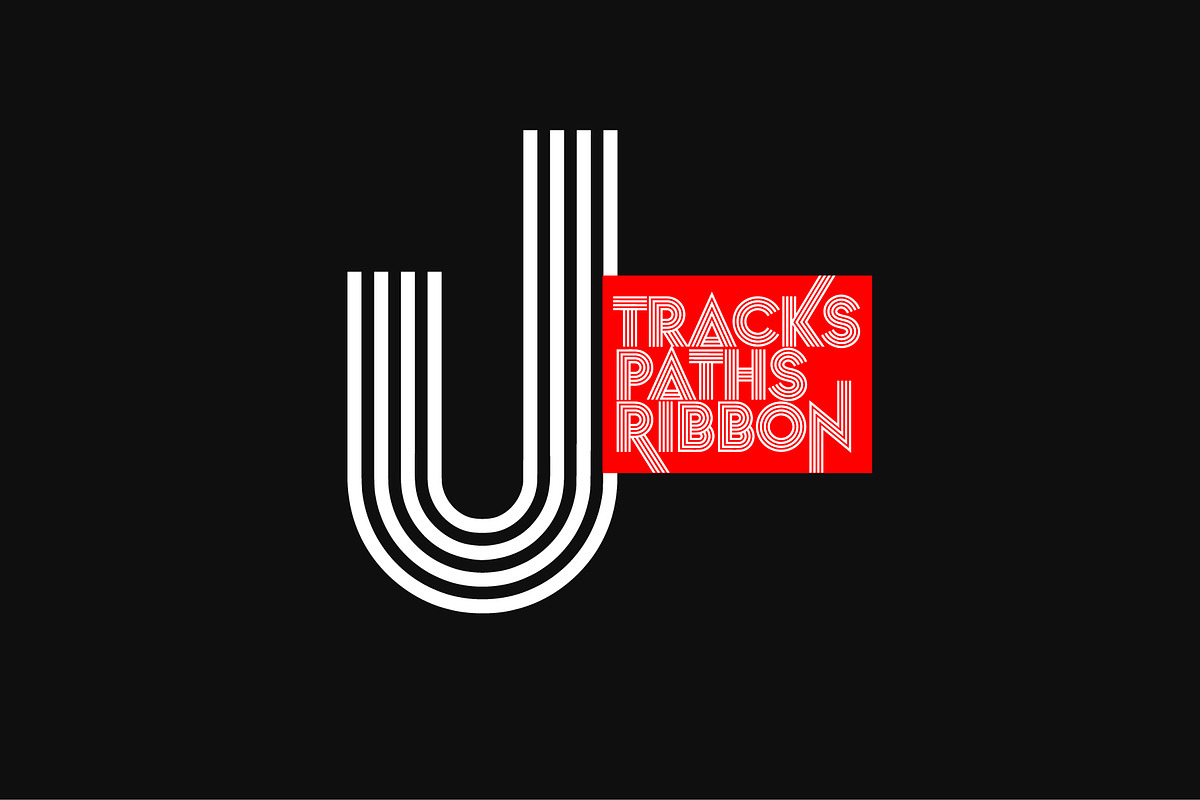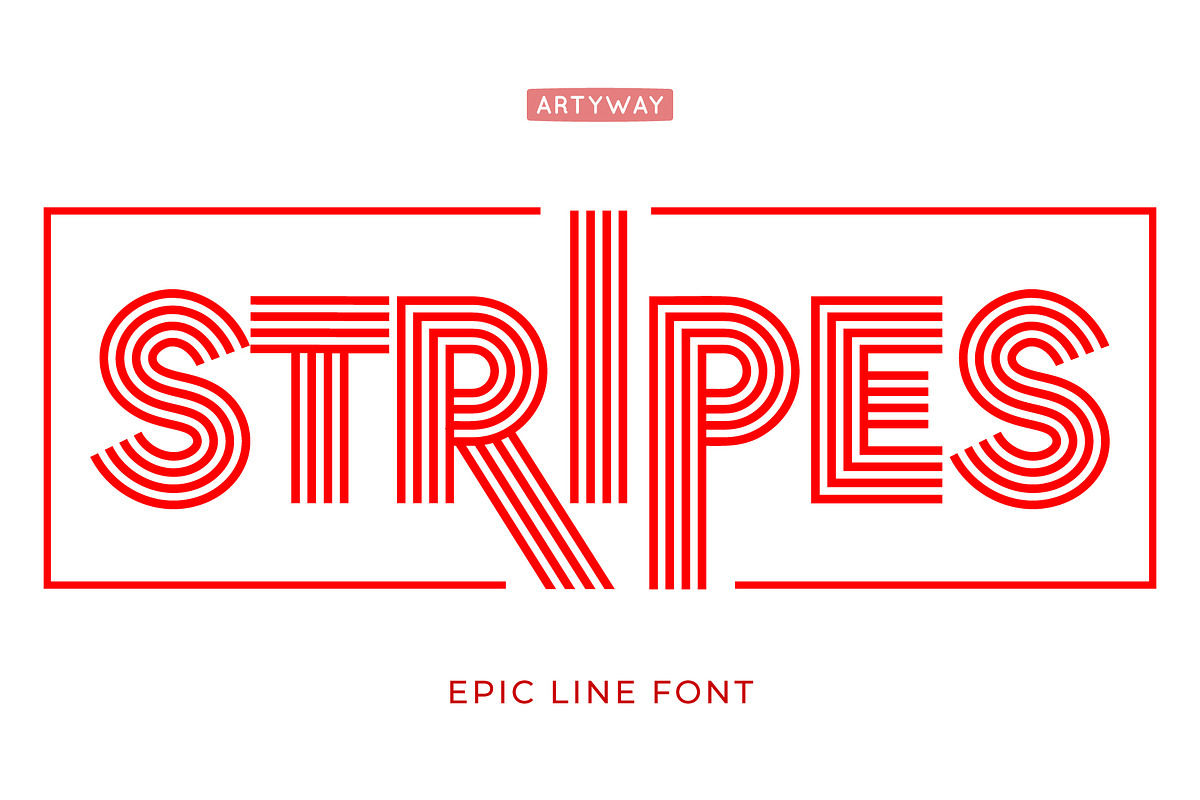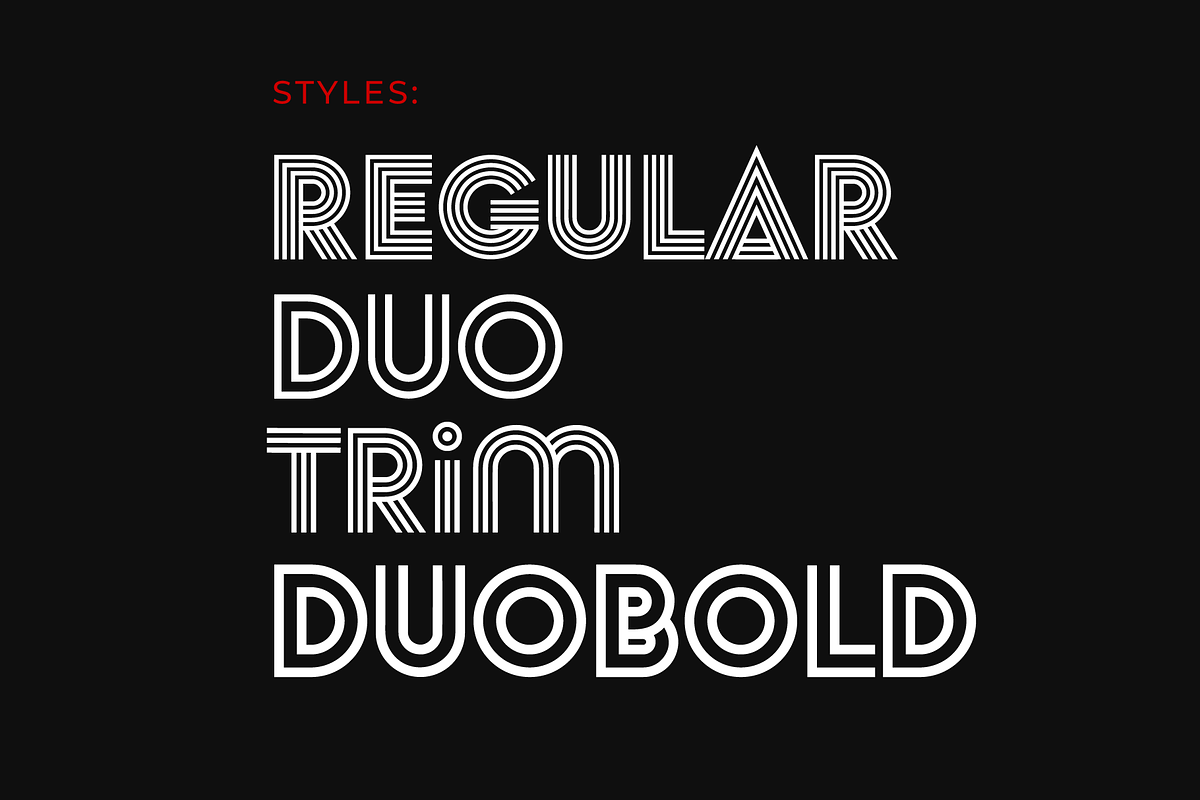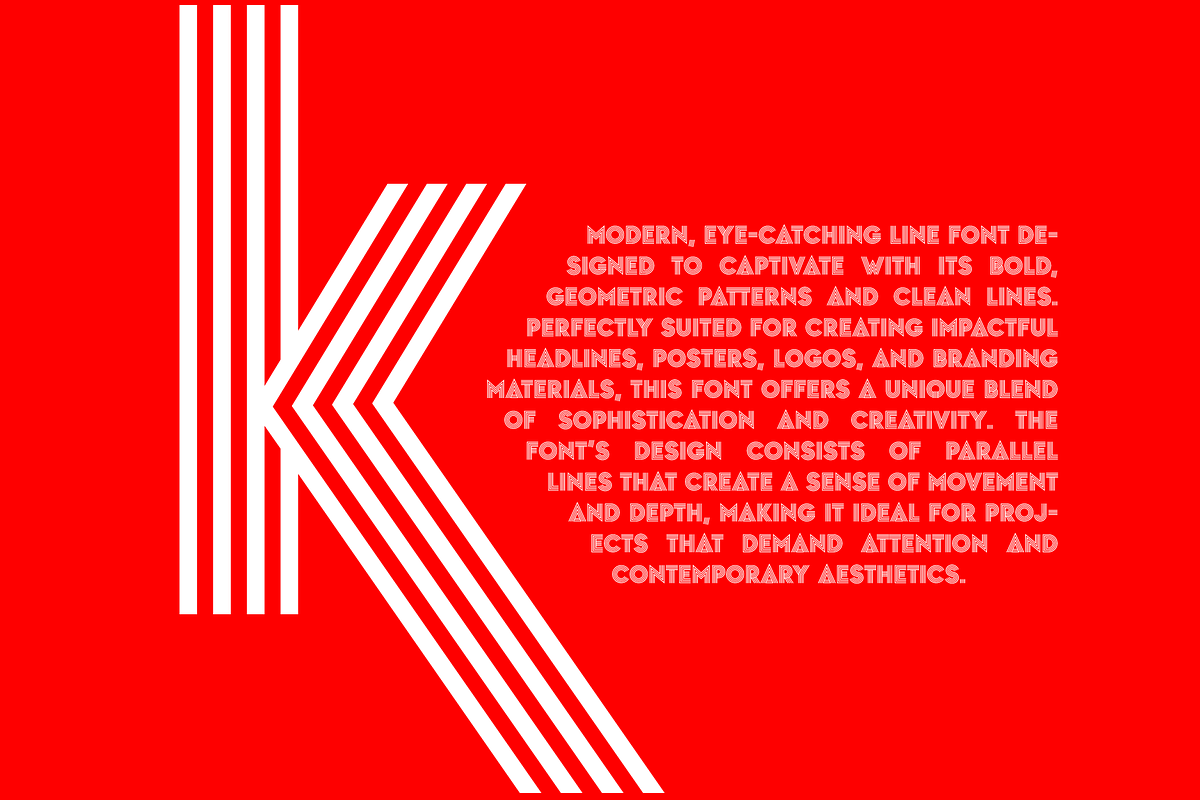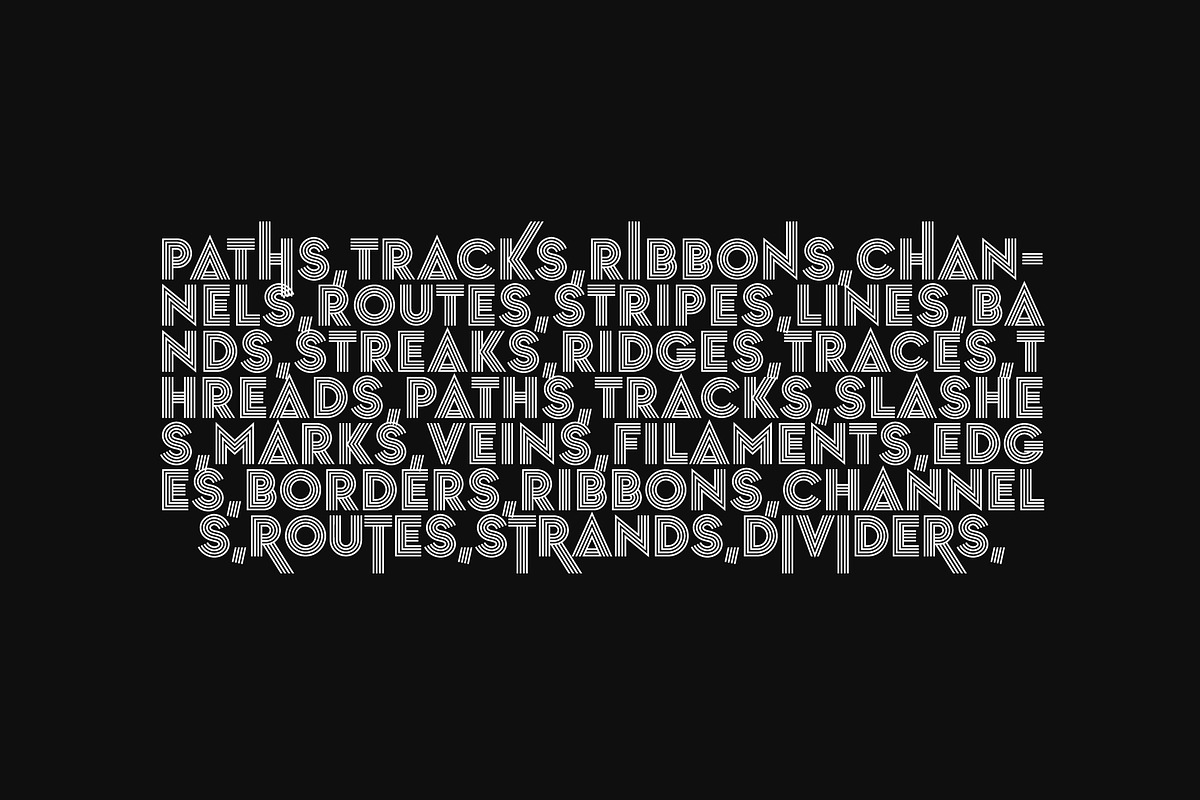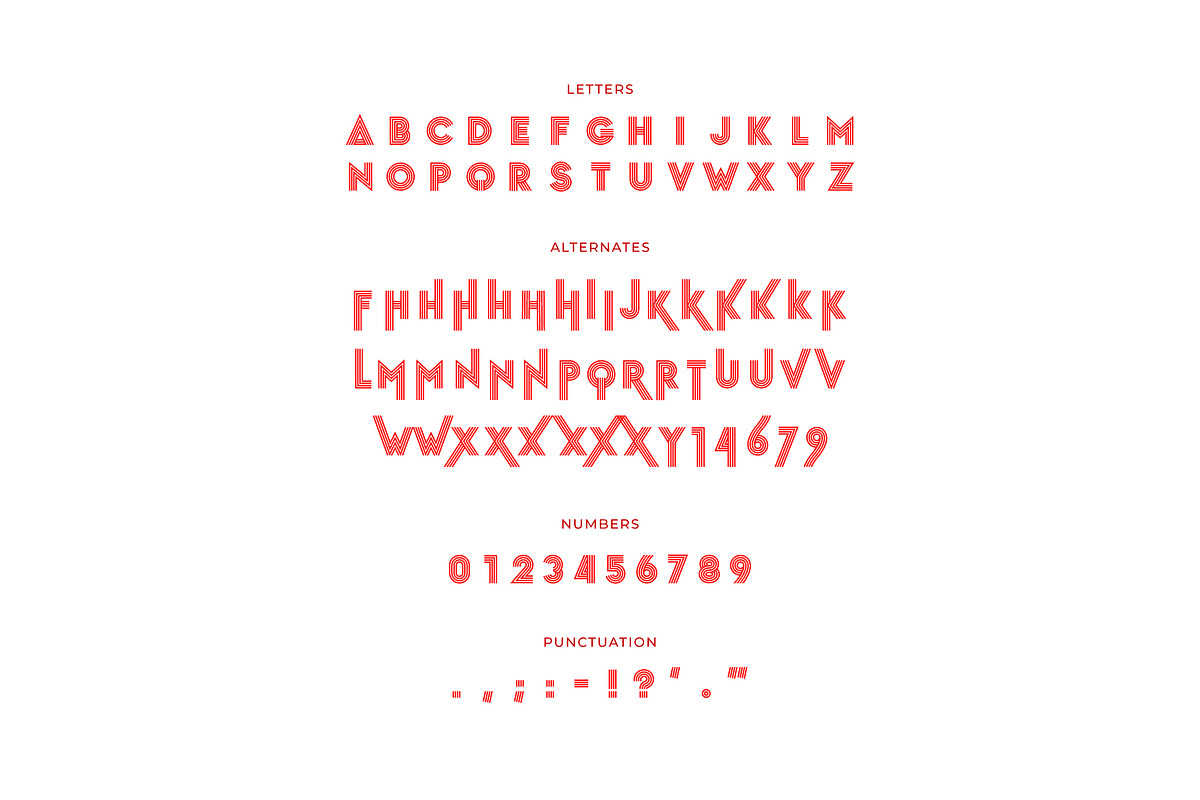
Striped Headline Font
Eye-catching lines font designed to captivate with its bold, geometric clean lines. Perfectly suited for creating impactful headlines, posters, logos, and branding materials, this font offers a unique blend of sophistication and creativity.
The font design consists of parallel lines that create a sense of movement and depth, making it ideal for projects that demand attention and contemporary aesthetics.
This typeface is perfect for graphic designers, creative professionals, and brands looking to stand out with a distinct visual style. Whether you're working on a futuristic tech brand, a fashion campaign, or a vibrant event poster, STRIPES provides the versatility and dynamism needed to make your text pop